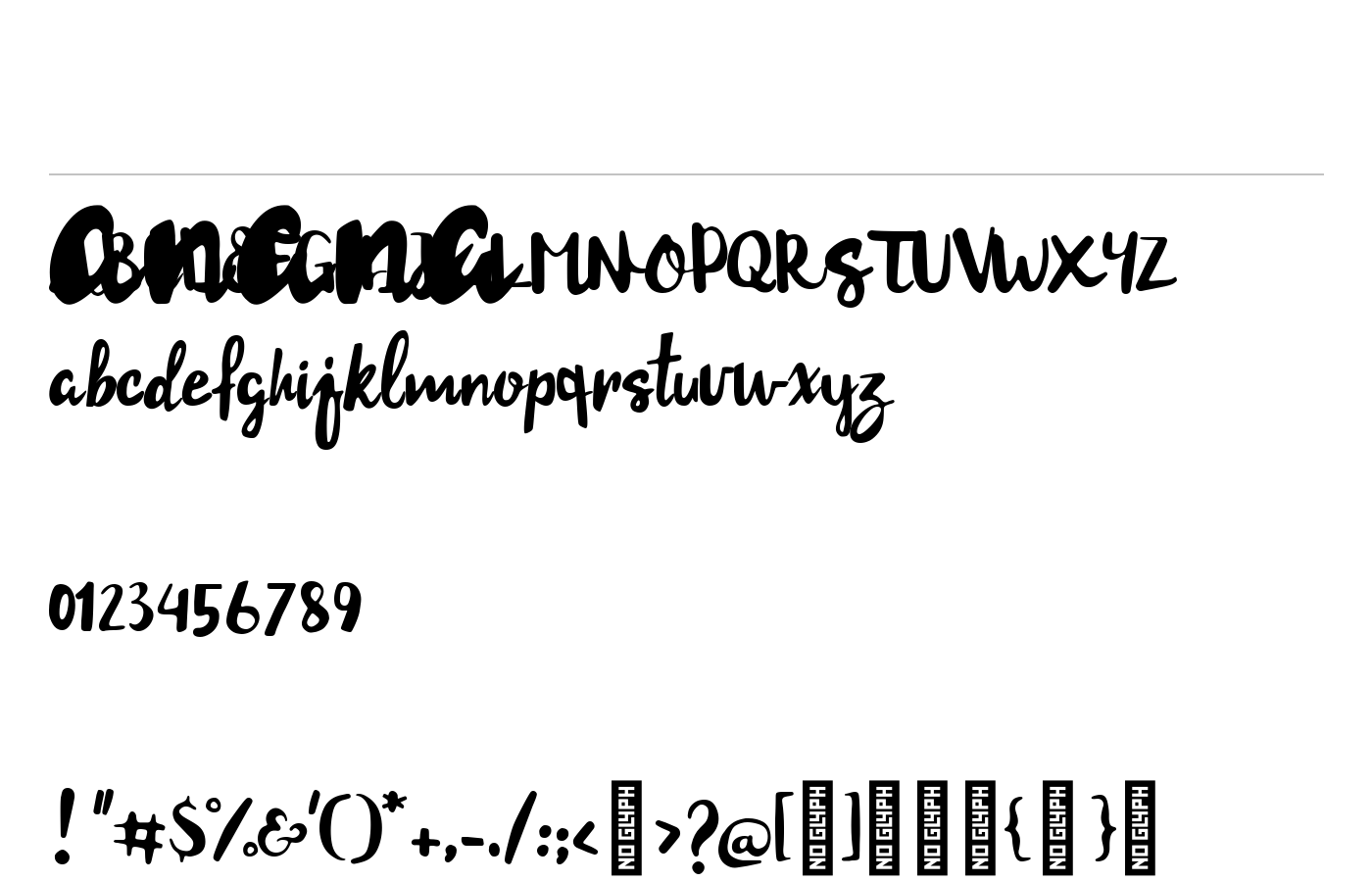
Anana is a playful and casual script font with a hand-drawn feel, featuring irregular strokes and a lively rhythm that give it a youthful, approachable personality. Its moderate weight and slightly condensed letterforms make it suitable for creative headlines, informal branding, and eye-catching packaging where a friendly, energetic touch is desired. This font works well for projects needing a personal, fun vibe while maintaining readability and charm.
anana Font
About anana Font